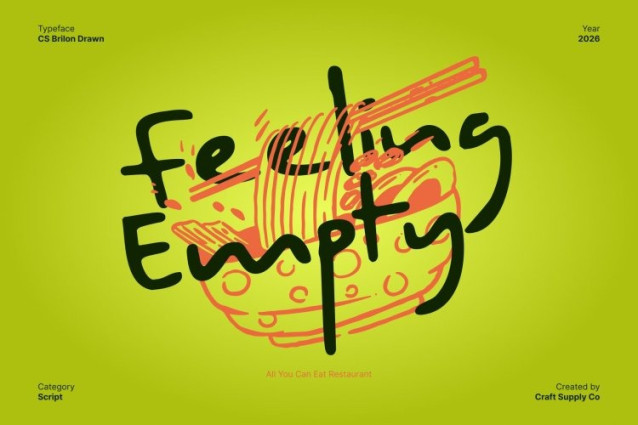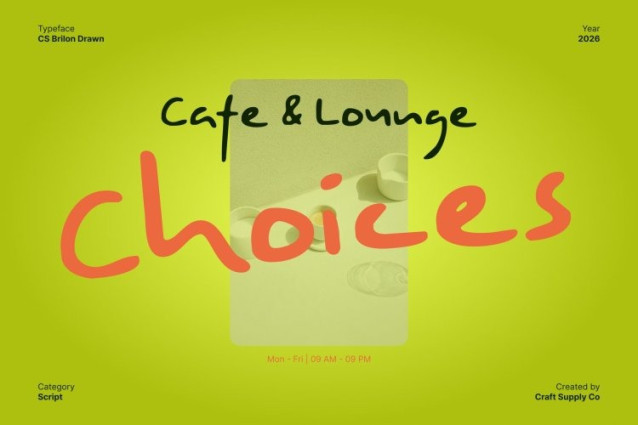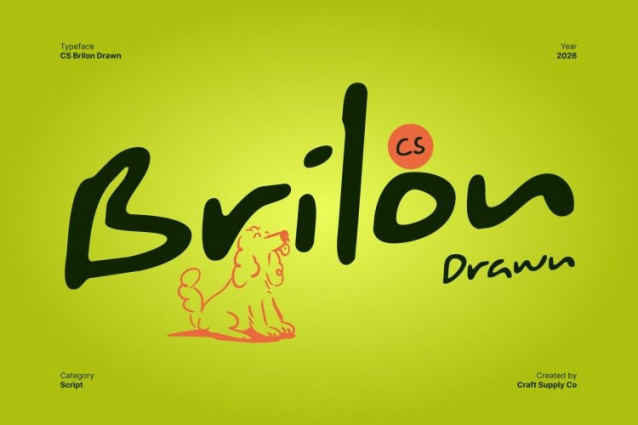
CS Brilon Drawn Font
CS Brilon Drawn Font This is a hand-drawn sans serif display font created to celebrate artistic freedom and organic expression. Built with textured strokes and naturally imperfect edges, this font delivers a raw, handmade feel that feels honest, expressive, and full of character. Its organic construction moves away from rigid geometry, making it ideal for creative projects that value originality and human touch over polished perfection.
Imperfect Edges with Natural Drawn Texture
The distinctive charm of this font lies in its irregular outlines and visible hand-drawn texture. Each letter carries subtle inconsistencies that add warmth and depth, creating a lively rhythm across words and layouts. This drawn finish gives the font a tactile, almost sketch-like quality, making designs feel personal, artistic, and visually engaging while remaining clear and readable in display use.
Artistic Energy for Expressive Storytelling
Designed for expressive and imaginative visuals, this font brings strong artistic energy to typography. Its organic shapes and textured details help convey emotion, creativity, and individuality, making it a powerful tool for visual storytelling.
Perfect for Posters, Packaging, and Creative Branding
This font is perfect for posters, packaging, creative branding, editorial visuals, and promotional designs. Its handcrafted aesthetic makes it especially suitable for artisanal products, indie brands, creative studios, music visuals, and lifestyle projects.